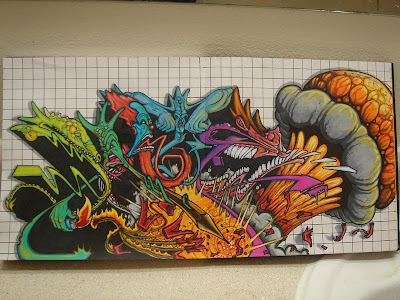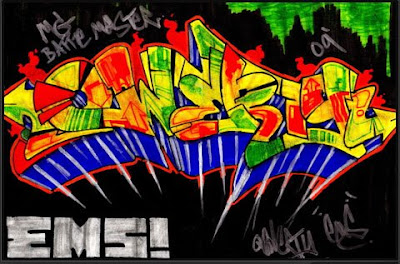
3D Graffiti alphabet bubble made of stone has the benefit of others. Graffiti alphabet, if we use a paint sprayer or use a pencil only beautiful views. But graffiti alphabet made of stone has other benefits, if we are on holiday in the garden there is graffiti alphabet made of stones can we make the sit or relax. Graffiti made from stone from this unique remote as any posts gods. According to the New Graffiti. How to graffiti in your area?
3D Graffiti Alphabet Bubble Made Of Carving Stone Unique
What If Graffiti Alphabet Mural Tribal Green Light In All The Country Legally?
In areas such as Siliwangi, precisely in the country legal graffiti alphabet mural. because the regulation was to provide local jobs for artists graffiti alphabet to create works of art through the media wall in the road Siliwangi. If the young people passing through certain roads Siliwangi stunned because the beauty graffiti alphabet mural green light. If we see the graffiti is like in the jungle. I breathe the cool air. Please pay a visit to the country Indonesia famous for the many cultures that are still very natural.
Create A 3D Graffiti Alphabet Bubble Blue Color In A Public Area In The Police Catch
Create A 3D Graffiti Alphabet Bubble Blue Color In A Public Area In The Police Catch Create 3D graffiti alphabet in bubble areas such as the public have their own prestige. In addition, adrenalin will spur, are for fear of police or gangster, big risk if we make out graffiti alphabet bubble in a public area. If we know the police will deal with the law, entered the prison and we can not be the graffiti art alphabet bubble blue color. Gangster may be discovered if we risk beaten up in black-and-blue. But it is to make young people proud to make a blue bubble graffiti alphabet, because they can create works of art known graffiti alphabet without other people. New Graffiti as such, how about you?
The 3D Graffiti Alphabet Blockbusters-Style Black And Yellow Like The Road Crossing
3D style graffiti alphabet Blockbusters is a design or style of making graffiti alphabet are simple, but results in a graffiti style alphabet blockbusters is very beautiful. People who see it will be fun. Graffiti alphabet color from black and this is typical of yellow. Characteristics graffiti alphabet letters blockbusters this is big and wide but have also created with a capital letter, but thin. Graffiti alphabet blockbusters this yellow and black like crossing road, that there is light red, yellow and green. The color of light crossing the country in indonesia or New Graffiti, how about your country?
The 3D Tribal Graffiti Alphabet Characters Blue Light
Graffiti graffiti alphabet character is the form of a caricature and comic. In it there is a frame with the speech of the person, there is also graffiti alphabet characters in a satirical to state officials who do corruption, would not care what the people feel who can not afford. Graffiti alphabet character in this made by the author that have skills and know the art situation or economic situation in the country. This according to the New Graffiti, how about you?
The 3D Digital Graffiti Style Alphabet Draw Graffiti Electical With The Tribal Full Color
3D digital graffiti alphabet Electical is a graffiti style alphabet is created in the wild, in the design still have the less interesting. Graffiti alphabet and in the re-design with a certain level of complexity, graffiti alphabet, so that the beautiful views and very interesting. Electical graffiti style alphabet is often called the alphabet graffiti style tribal full color. This according to the New Graffiti, how about you?
Make Sketches Graffiti Alphabet In Black And White Walls, Illegal Or Legal?
Legal or not an alphabet of graffiti in the streets, for the New graffiti, still considered as a paper. in Yogyakarta, murals and graffiti alphabet is legal. Allow the local government, and even provide the land for the street art work. While in Bandung is still illegal. Different story if you have the money. you can create graffiti expression at will. What in your opinion?